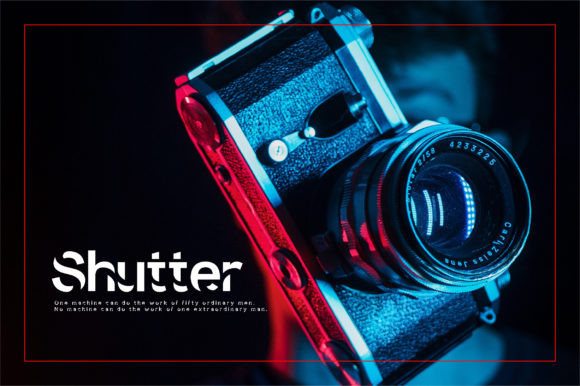
Setters Font
Setters is a bold and authentic display font. It celebrates abstract shapes in all their eclectic brilliance. Add this font to your creative ideas and notice how it will make them stand out!